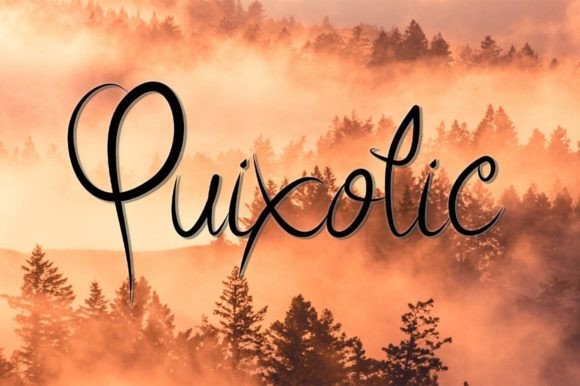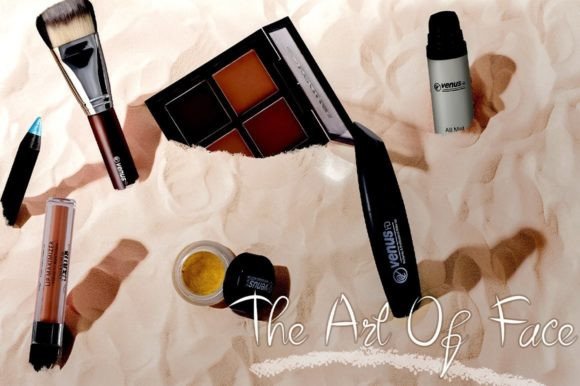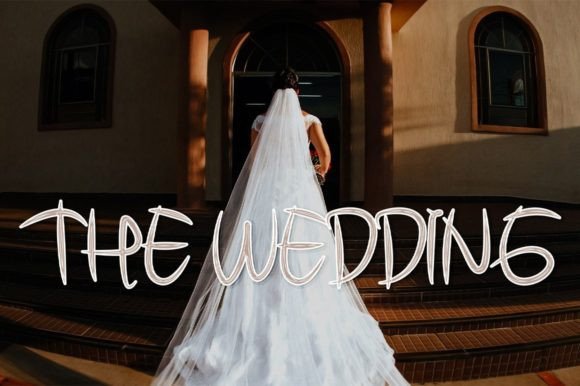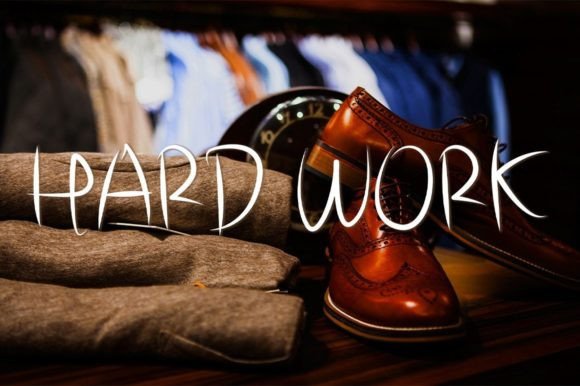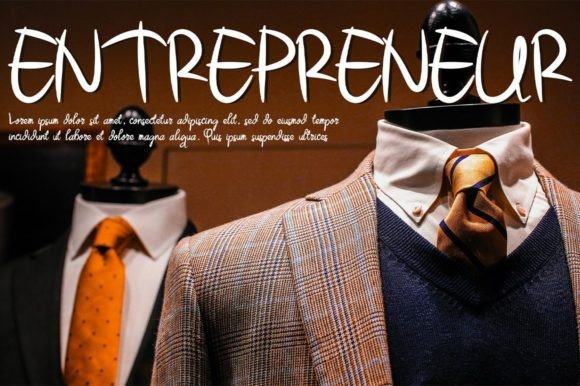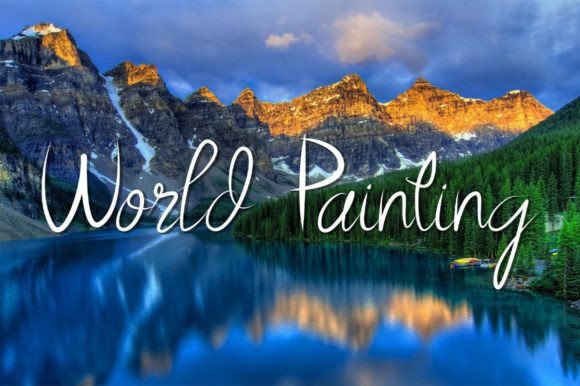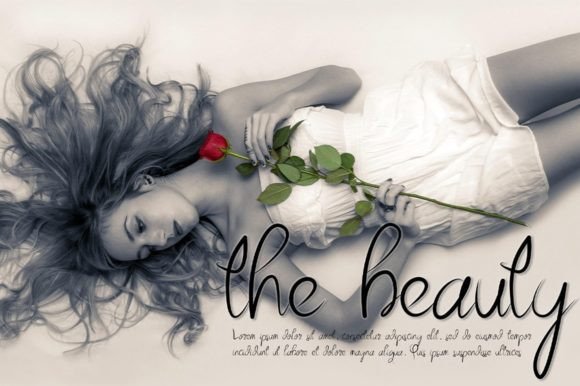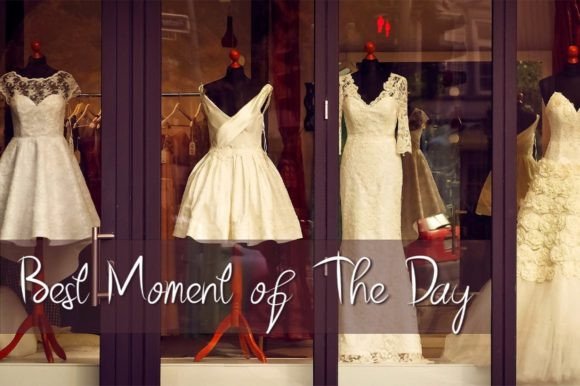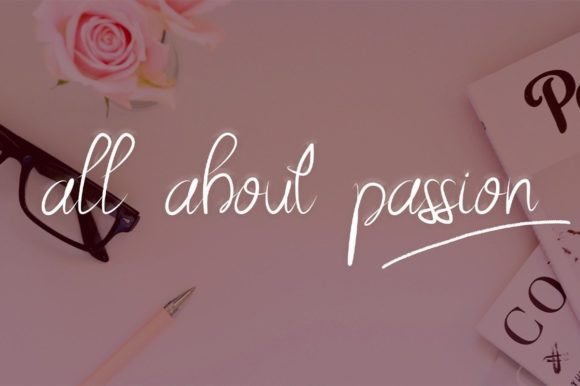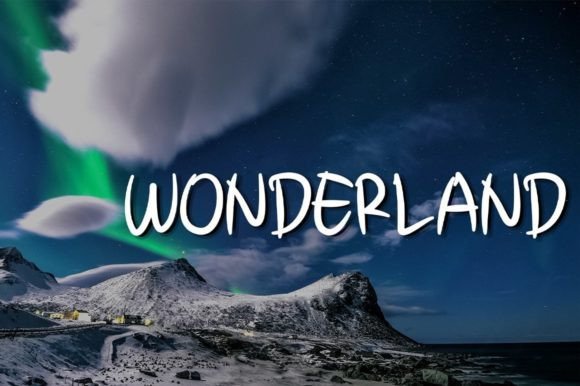
Quixotic Font
About Quixotic Font
“Quixotic” is a distinctive and contemporary script font that stands out with its unique and casual appearance. Its modern design makes it a versatile choice for a wide range of creative applications, including logos, branding, invitations, stationery, wedding designs, social media posts, and much more. With its unconventional yet stylish look, “Quixotic” adds a touch of individuality and creativity to any project it is used for.
The font’s casual and distinct letterforms give your text a sense of character and personality. Its unconventional style makes it perfect for projects that require a modern and trendy vibe. Whether you’re designing a logo for a cutting-edge brand, crafting stylish wedding invitations, or creating eye-catching social media posts, “Quixotic” adds a contemporary and fresh look to your designs, making them visually appealing and engaging.
“Quixotic” is unique in its ability to convey a sense of modernity and creativity. Its casual yet stylish appearance sets it apart from traditional script fonts, making it an excellent choice for projects that demand a fresh and innovative approach. By incorporating “Quixotic” into your designs, you can infuse them with a modern and unconventional flair, making them stand out and leave a memorable impression on your audience.
One of the standout features of “Quixotic” is its versatility. Its modern and distinct look allows it to adapt seamlessly to various design contexts, ensuring that it complements different themes and concepts. Whether you’re working on a contemporary brand identity, trendy wedding designs, or dynamic social media graphics, “Quixotic” adds a level of creativity and uniqueness that captures attention and resonates with viewers.
Embrace the uniqueness and modernity of “Quixotic” and discover how it transforms your creative projects. Its unconventional style and versatility make it a valuable asset for designers seeking to create visually striking and contemporary designs. With “Quixotic,” you can confidently craft modern and innovative creations that reflect your creative vision, making a lasting impact and leaving a lasting impression on your audience.